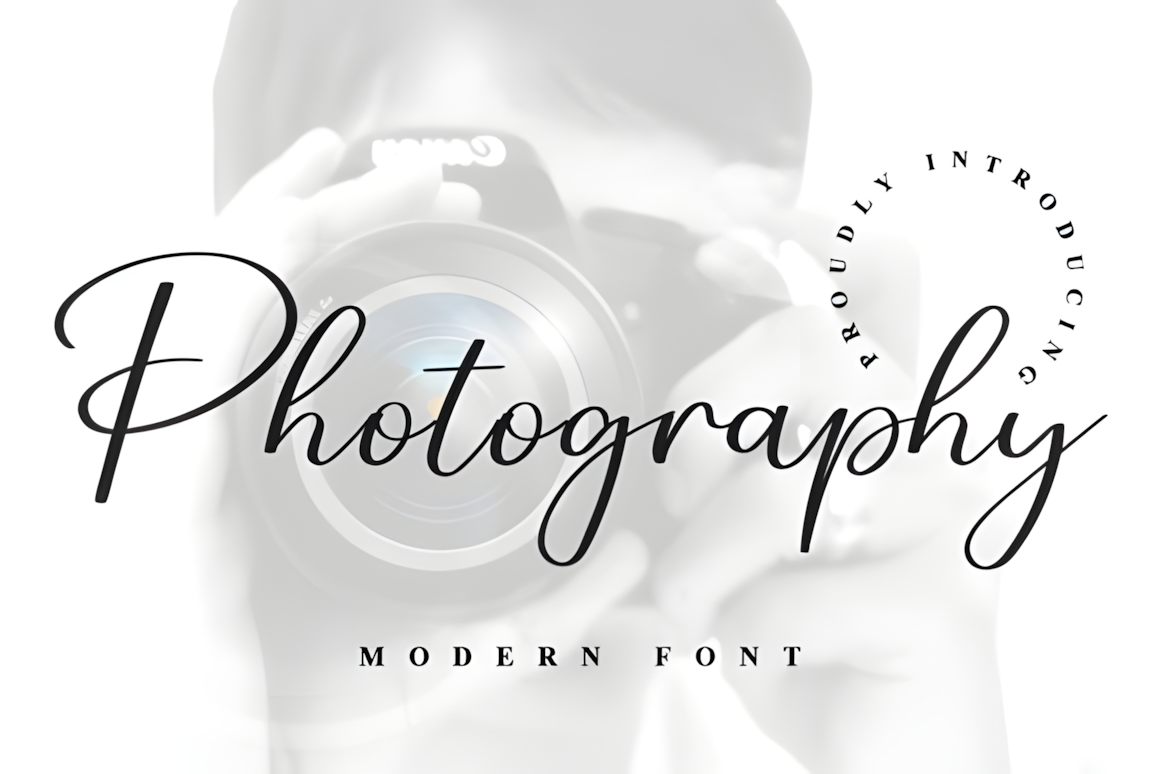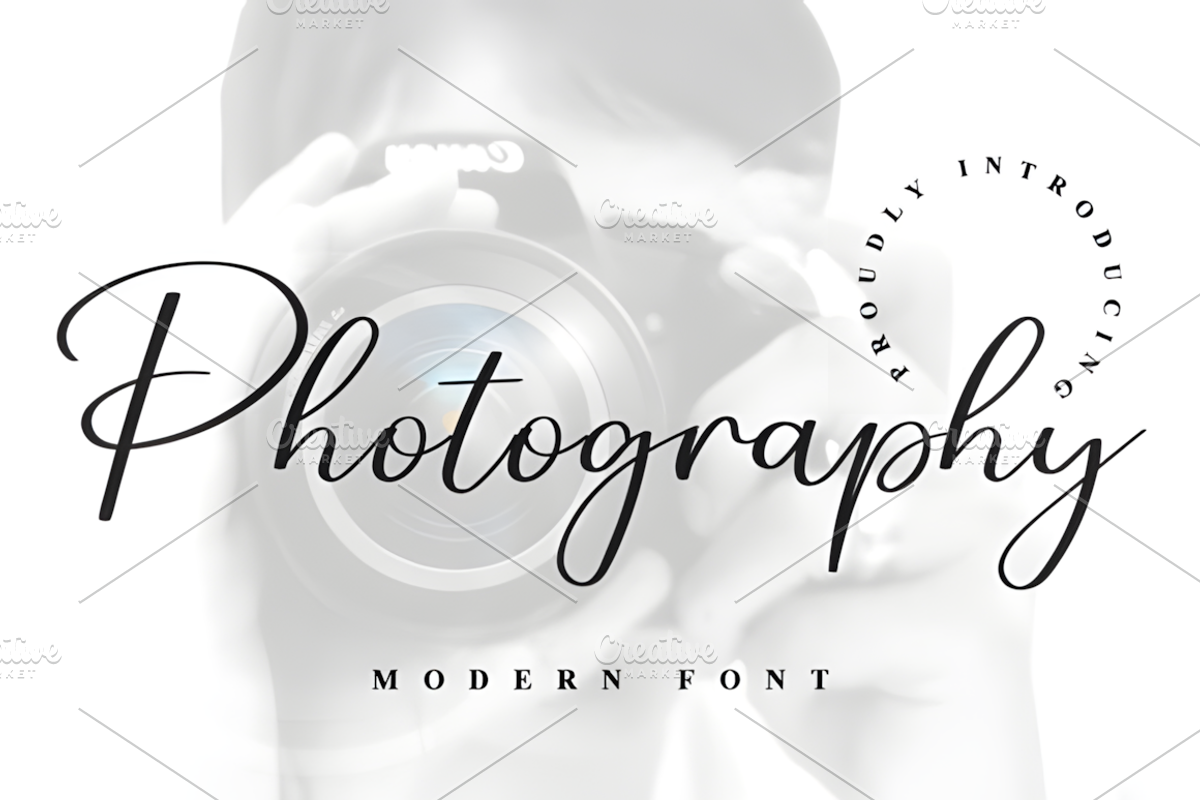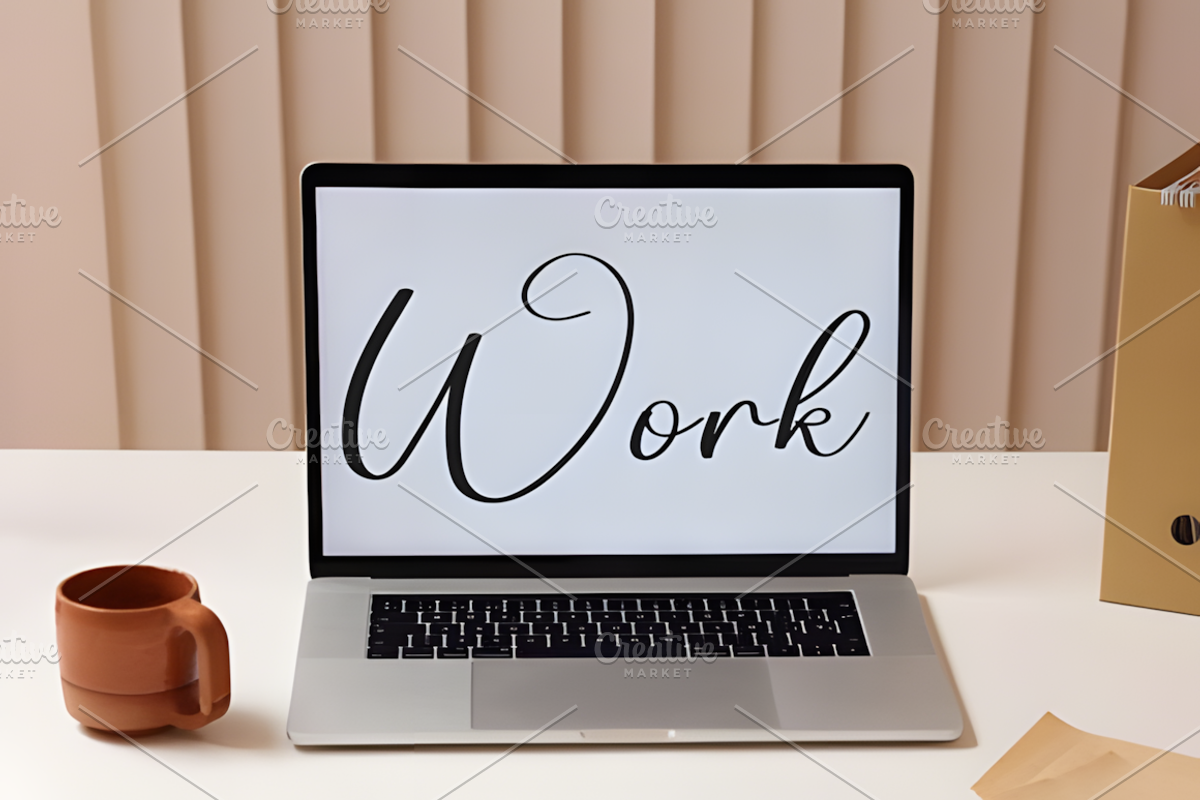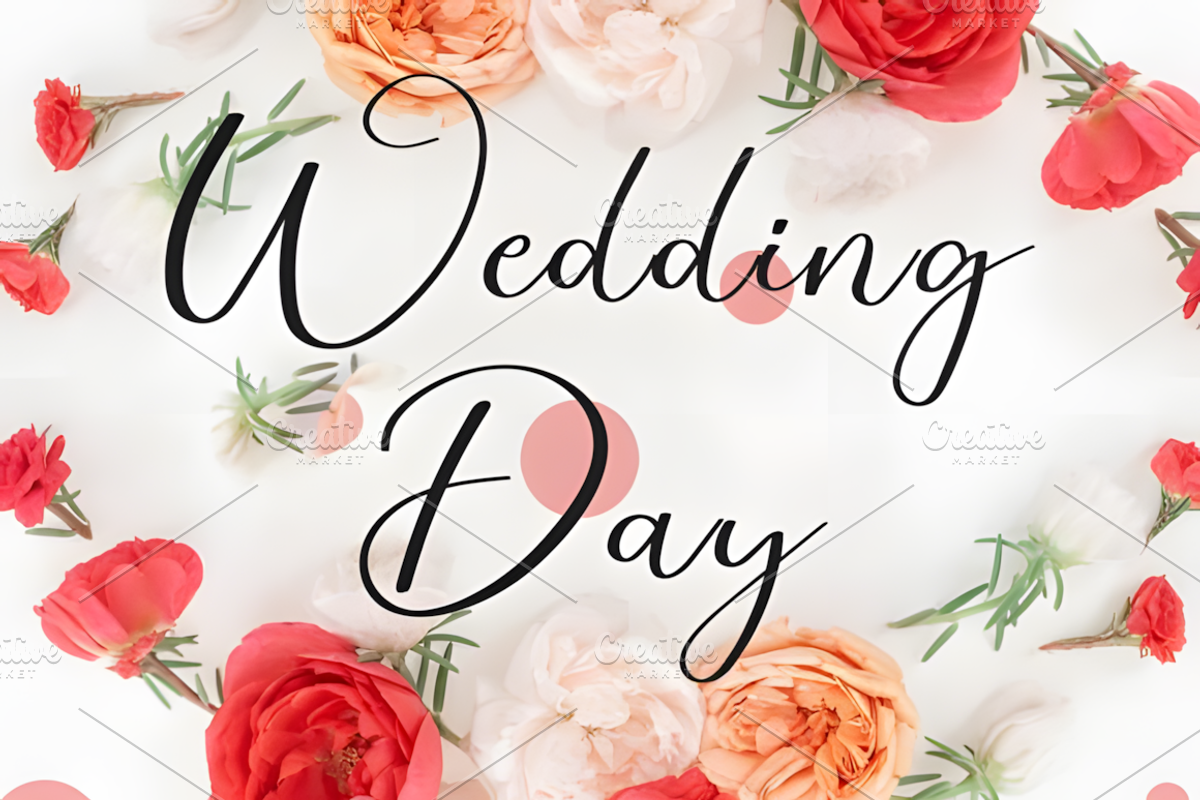
Photography Font Font
Photography Font
Photography Font is a versatile and modern typeface created to enhance your visual storytelling with clean, elegant typography. Its sleek design makes it an excellent choice for photography logos, watermarks, branding, portfolios, websites, social media graphics, business cards, and promotional materials. Whether you're a professional photographer, content creator, or graphic designer, this font delivers a polished and contemporary look that complements any creative project. The balanced letterforms ensure excellent readability while maintaining a stylish appearance. Perfect for both print and digital designs, Photography Font helps establish a memorable brand identity and showcases your artistic vision with confidence, sophistication, and timeless visual appeal.